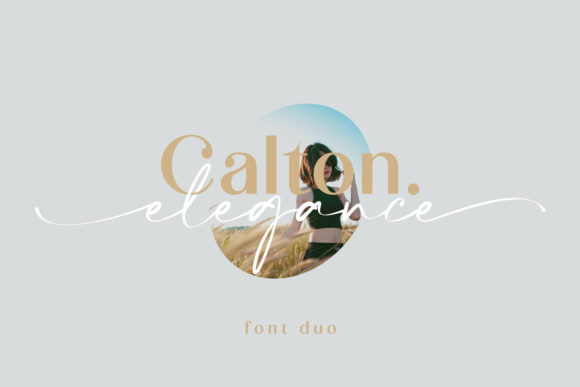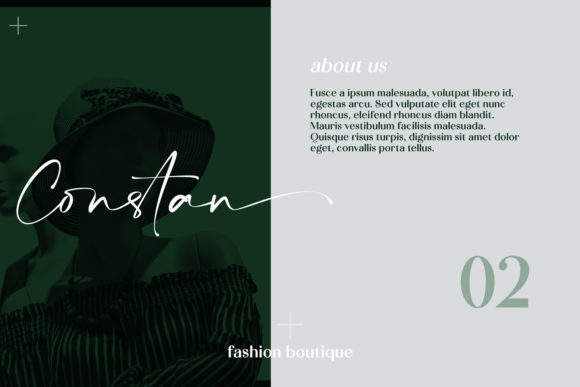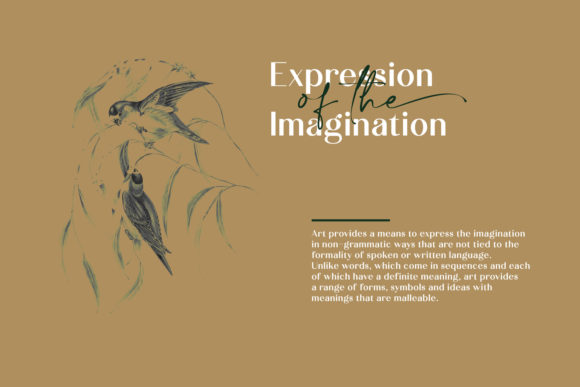
About Calton Elegance Duo Font
Calton Elegance Duo is a perfect mix of a beautiful script and a great sans serif. Combine them and give your designs a modern and unique look!